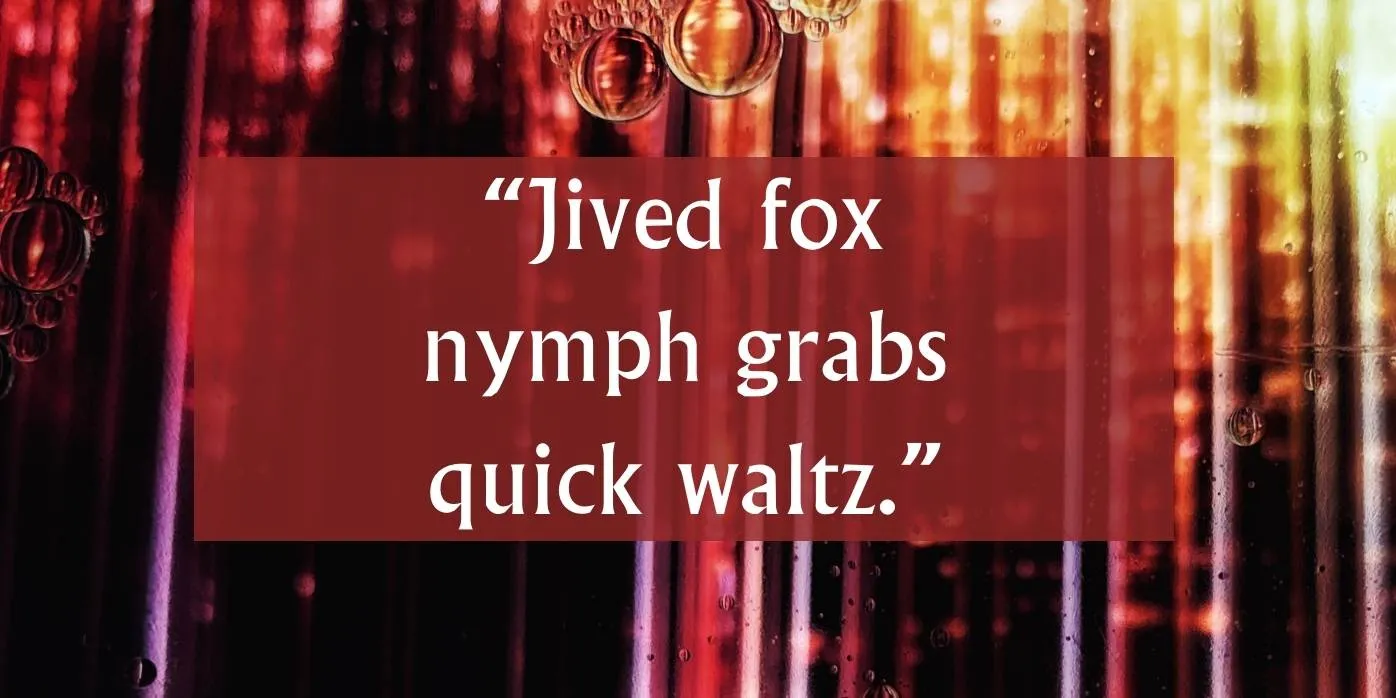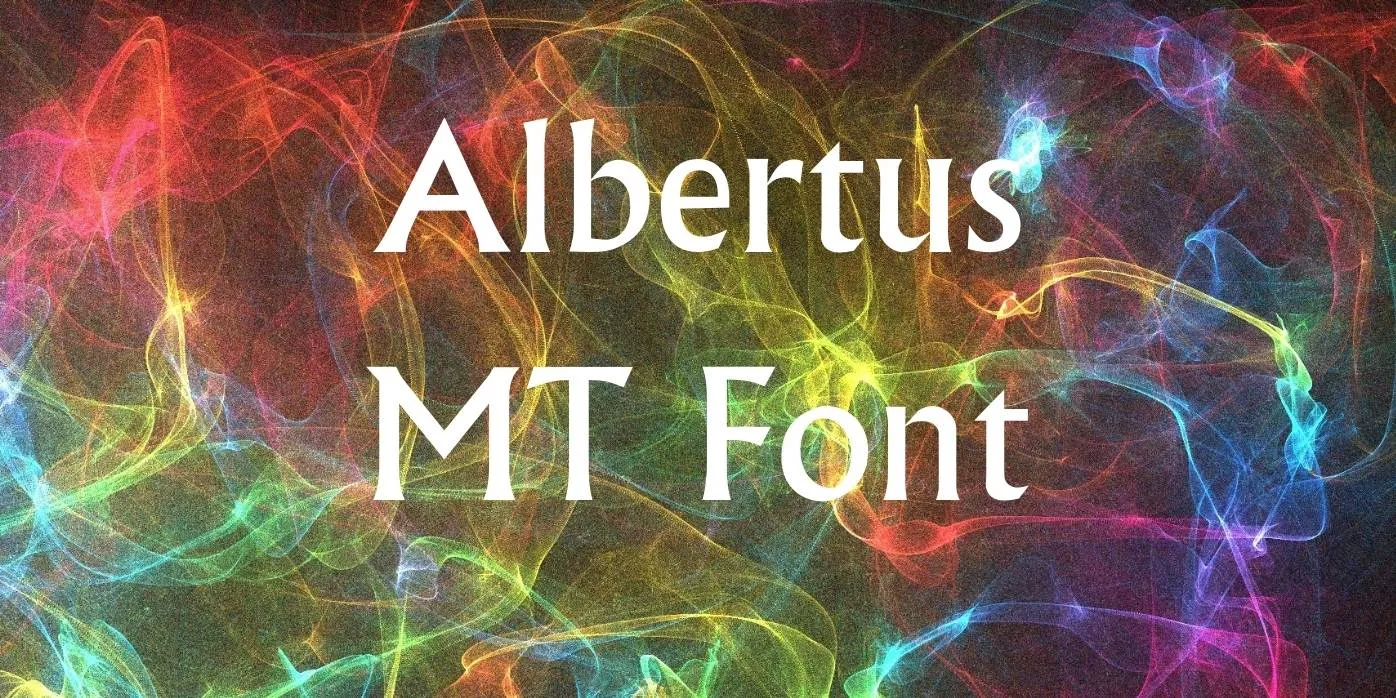
Albertus MT Font
Albertus MT Font was designed by very famous designer Berthold Wolpe. This cute font belongs to the Serif typeface. It was named after Albert the Great, a Christian theologian and scientist of the Middle Ages. Wolpe designed it in 1941 for the St Bride Printing Library in London.
This staggering font has a very distinct look and feels to it. While it is based on traditional fonts such as Garamond Font, it has its own unique characteristics that make it stand out. It is perfect for printing, both in digital and print media. This typeface is also paired with the Pt Serif Font.
When it comes to typesetting, This awesome font should be best for great caution. Because of its small x-height, tight spacing, and delicate serifs, it can easily become overused and look too fussy. This typeface has keen and clean textures.